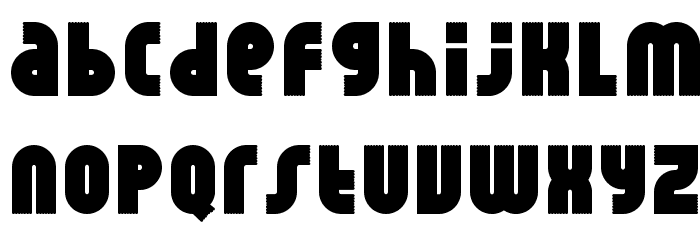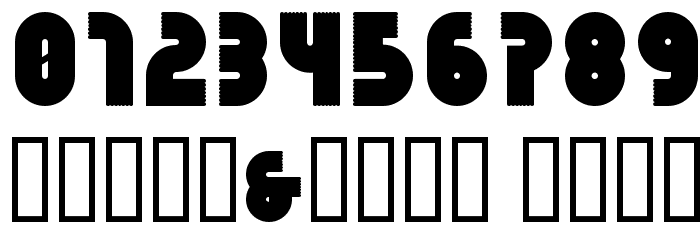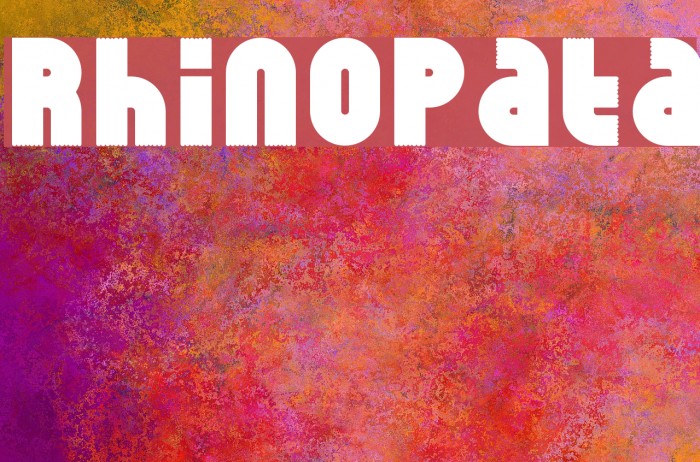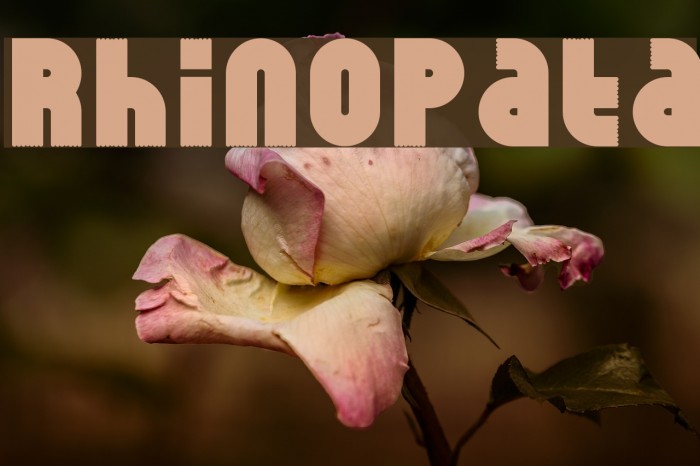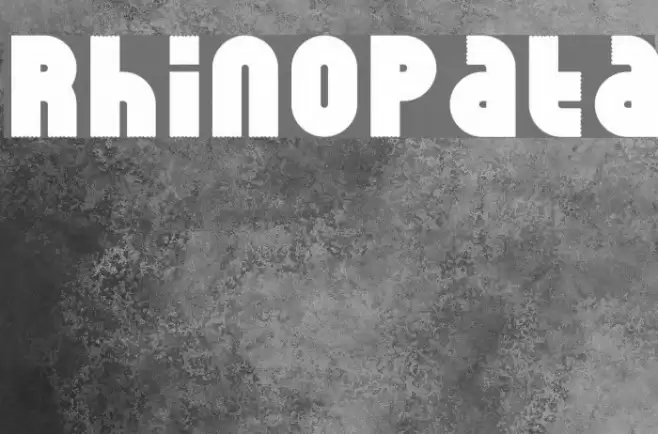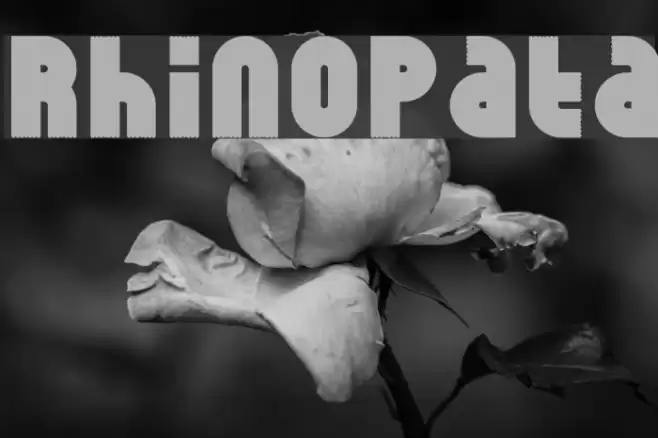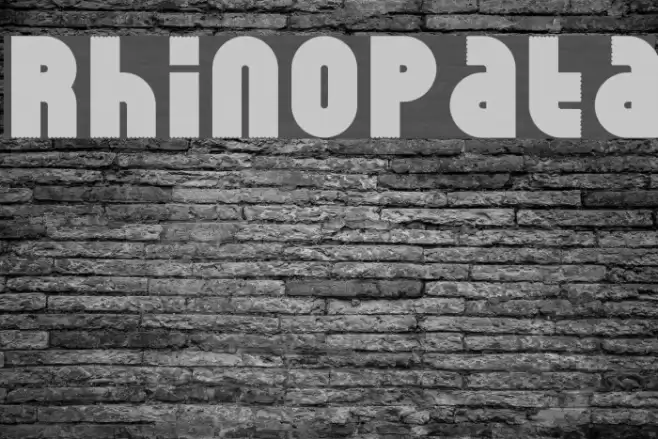
RhinoPata Font
This font features bold, geometric letterforms with a distinctive sawtooth pattern along the edges, creating a striking visual effect. The characters are uniformly thick, contributing to a strong and impactful appearance. The uppercase and lowercase letters maintain a consistent style, with rounded edges and a blocky structure. The numerals and special characters follow the same design principles, ensuring a cohesive look across all glyphs. This font's unique style makes it ideal for attention-grabbing designs.
A bold, geometric font with a sawtooth edge pattern and uniform thickness.